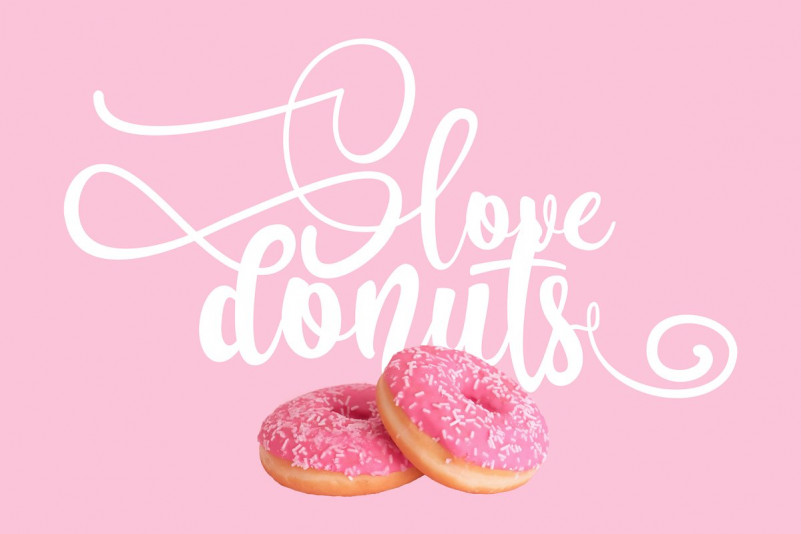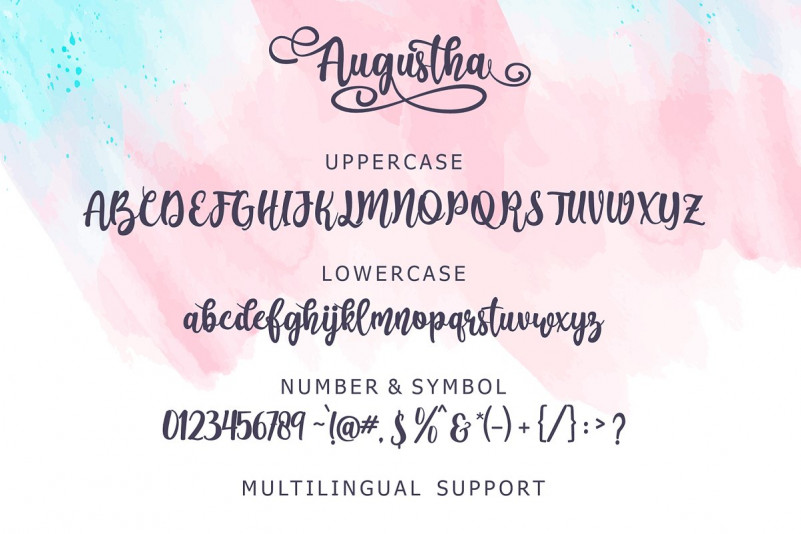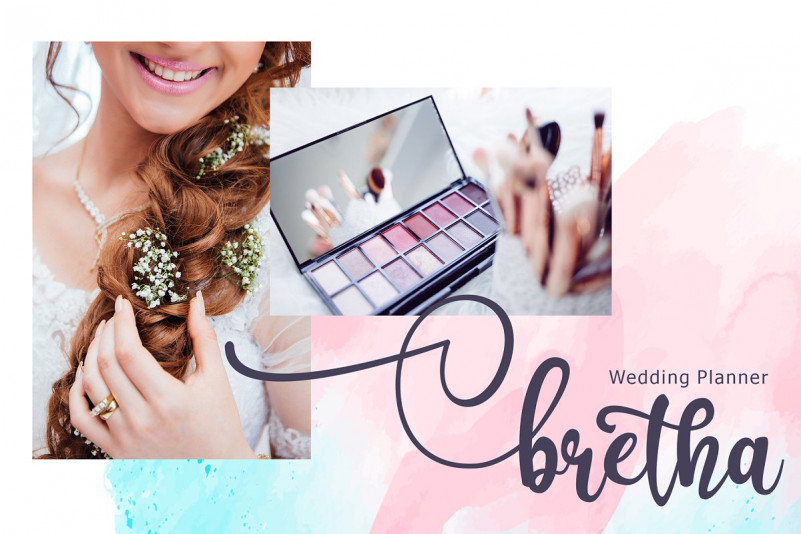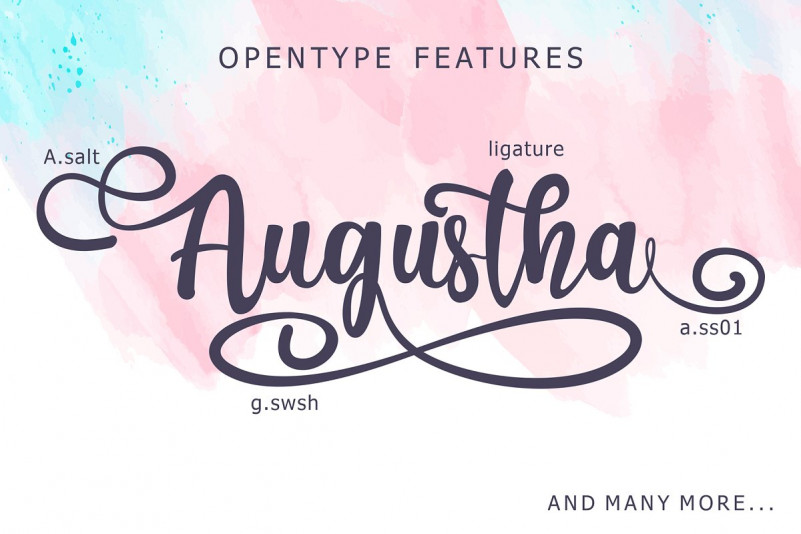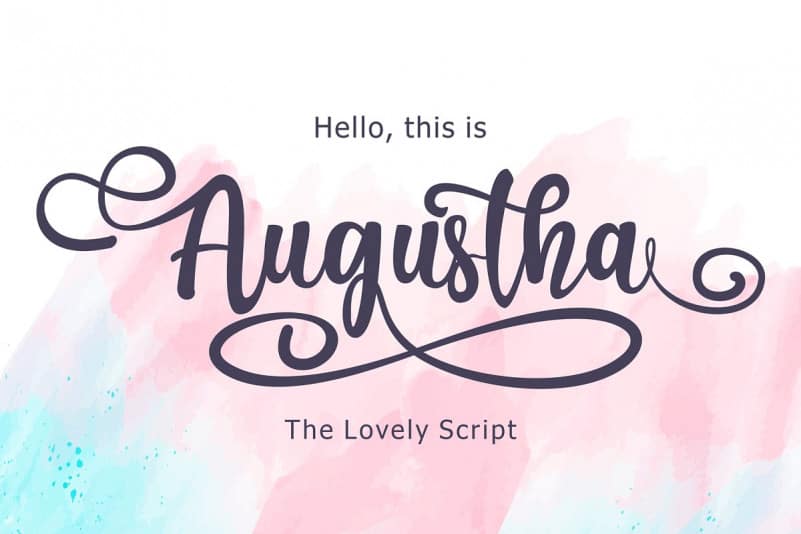
Augustha Script Font
Hi Font Lover! Introducing Augustha font. A new Stylish handmade calligraphy font. You can try it first by typing the name you want below. It’s designed and shared by figuree studio. It’s a lovely script font. It has a striking and elegant style and is perfect for creating original designs. Very suitable for greeting cards, branding materials, business cards, quotes, posters, and more! This font are perfect for wedding postcard. Or you can create perfect and unique design of your logo, blog, stationery, marketing, magazines and more 🙂